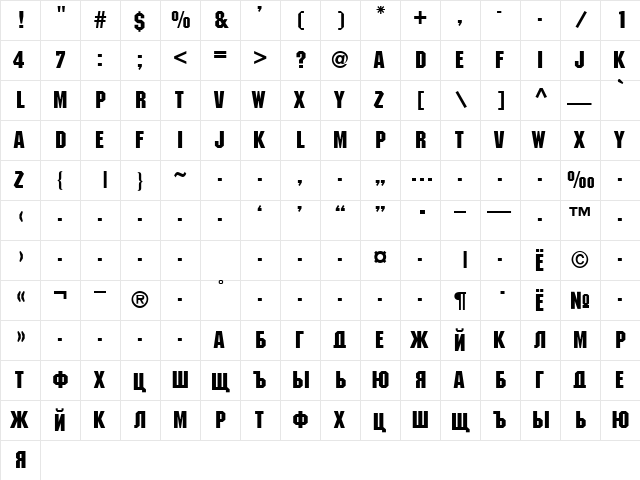
EngineCyr Bold
Design Context for EngineCyr Typeface
EngineCyr takes a measured approach to typography — its balanced proportions and neutral character make it a reliable workhorse for both digital and print work. Its bold stroke weight gives it real presence on the page.